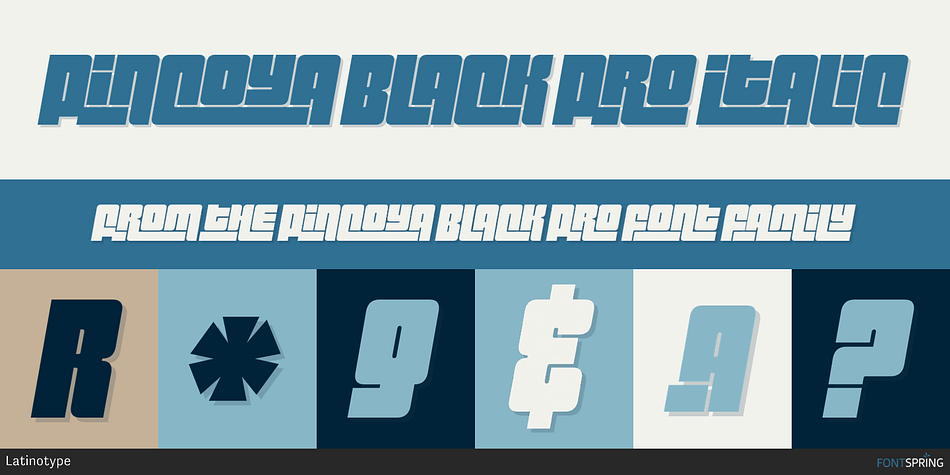
Pincoya Black Pro Italic
Pincoya Black Pro is a display font family. This typeface has two styles and was published by Latinotype.
Designed by Daniel Hernandez, Pincoya is based on the lettering of a poster of the Spanish Civil War and complemented with graphics developed in the Chilean Popular Unity during the seventies.
Designed by Daniel Hernandez, Pincoya is based on the lettering of a poster of the Spanish Civil War and complemented with graphics developed in the Chilean Popular Unity during the seventies. Pincoya has a lot of alternate characters in Opentype format that provide multiple options when composing a text. It is an ideal source for high impact sentences for logotypes, magazine layouts, poster designs, etc